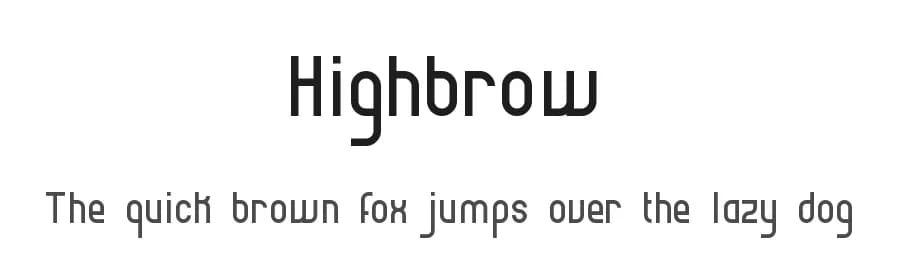
About Highbrow Font
This is a font that I made called Highbrow. Highbrow is a simple and stylish font that looks good in many places. It is constantly being updated with new characters and symbols as time goes on.
Highbrow Font is a versatile sans-serif font that works for both headings and body text. Pair it with a contrasting serif or slab serif font to add visual interest and a clear distinction between titles and body copy.
Highbrow Font